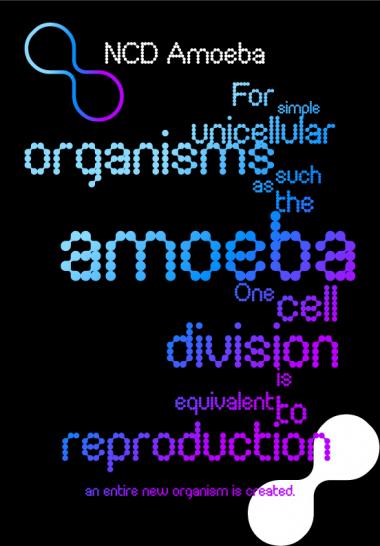
Based on the molecular separation of two biological cells around a dot matrix pattern.
For simple unicellular organisms such as the amoeba, one cell division is equivalent to reproduction - an entire new organism is created!
Based on the molecular separation of two biological cells, around a dot matrix format.
For simple unicellular organisms such as the Amoeba, one cell division is equivalent to reproduction - an entire new organism is created!
AFROJET - Great observation. I actually changed it at the very last minute as the forthcoming Ameoba Two has an alternative A. I'll change it back. I think you're right.